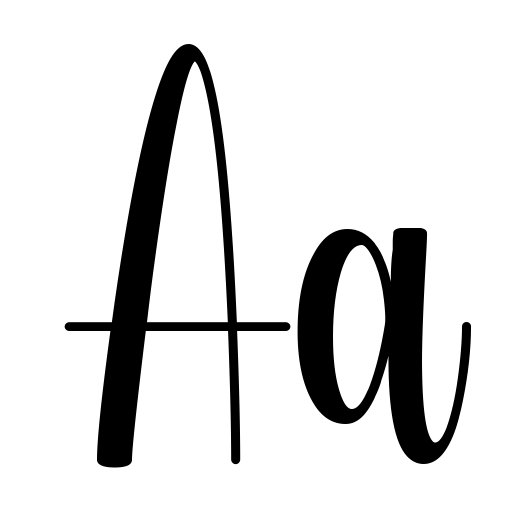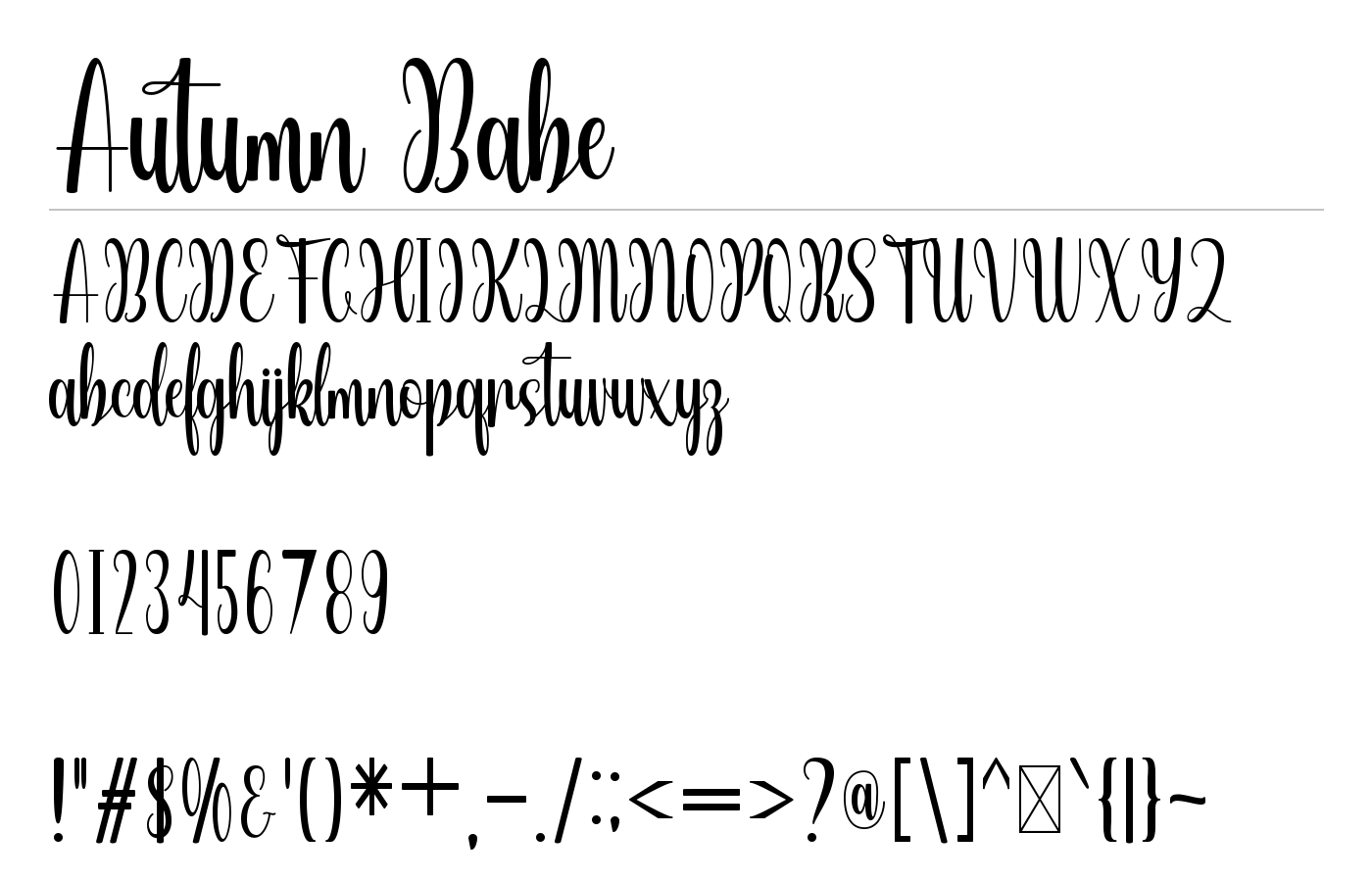
Autumn Babe is a stylish handwritten script font featuring a tall, narrow structure with elegant, flowing curves and moderate stroke contrast. Its playful yet sophisticated character makes it ideal for fashion branding, invitations, and creative projects that seek a unique, personal touch. This font shines in headlines and logos where a chic, artistic flair is desired.
Autumn Babe Font
About Autumn Babe Font